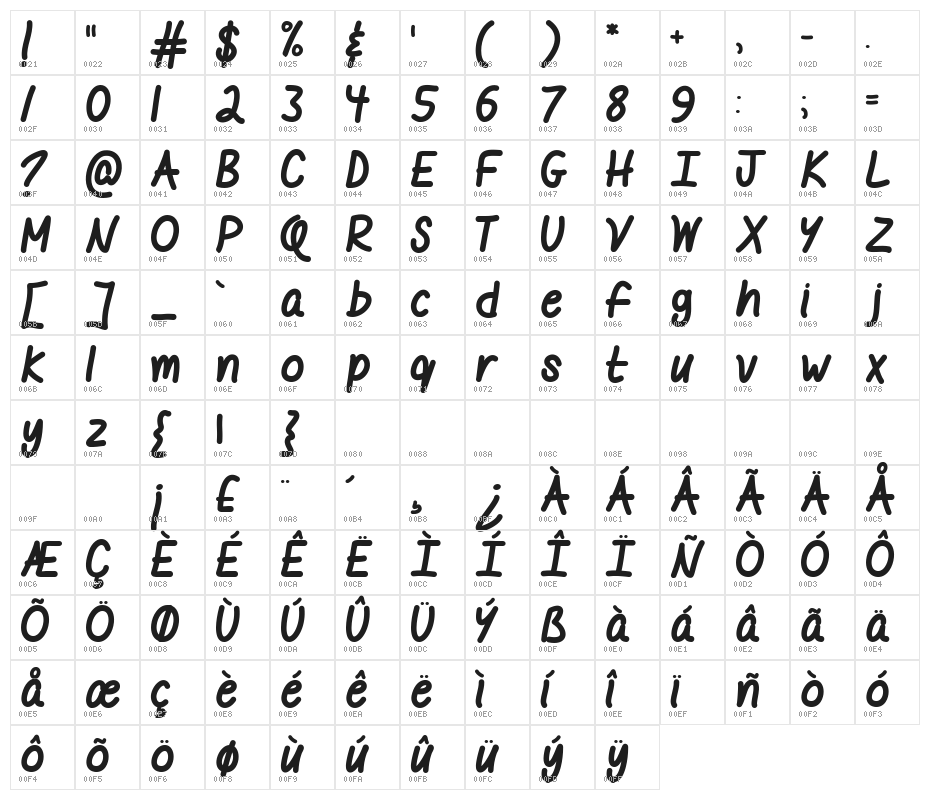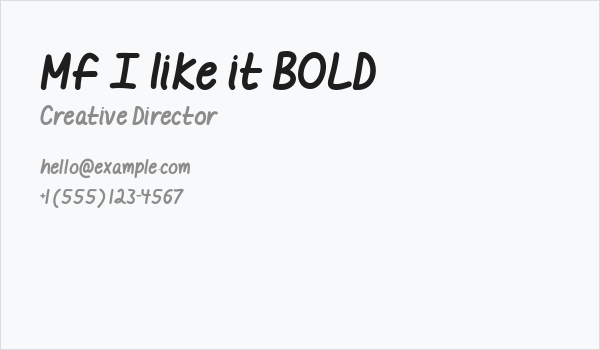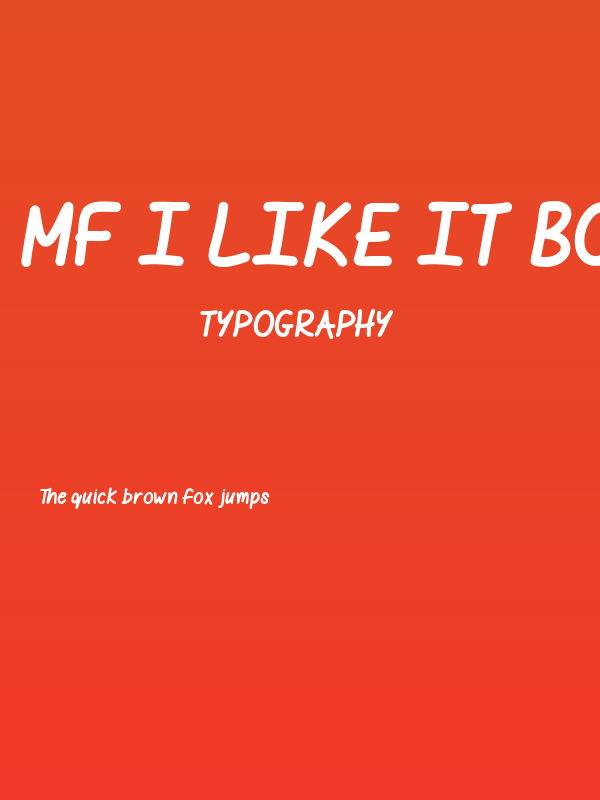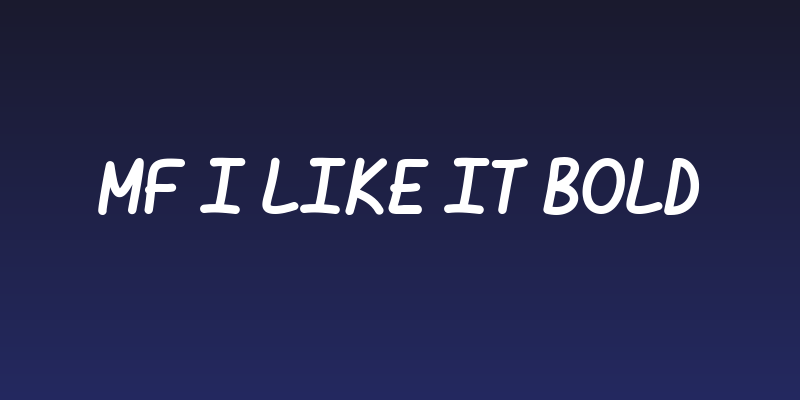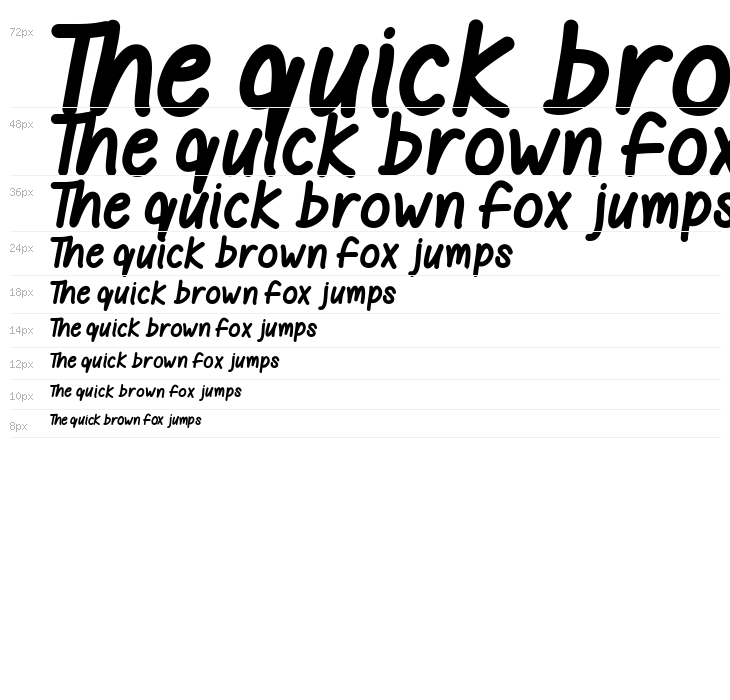
Mf I like it BOLD Font
Mf I like it BOLD Description
This font exhibits a bold and playful handwritten style, characterized by its smooth, rounded edges and consistent stroke width. The letters are slightly slanted, giving a casual and friendly appearance. The uppercase and lowercase letters maintain a uniform height, contributing to a cohesive look. The numerals and special characters are designed to match the overall style, ensuring readability and aesthetic harmony. This font is suitable for projects that require a personal touch, such as invitations, posters, and branding materials. Its boldness ensures visibility and impact, making it ideal for headlines and titles.
| Overall Style | Playful, Casual |
| Use Case | Headlines, Invitations, Posters |
| Proposed Projects | Ideal for invitations, posters, branding materials, and any project needing a personal touch. |